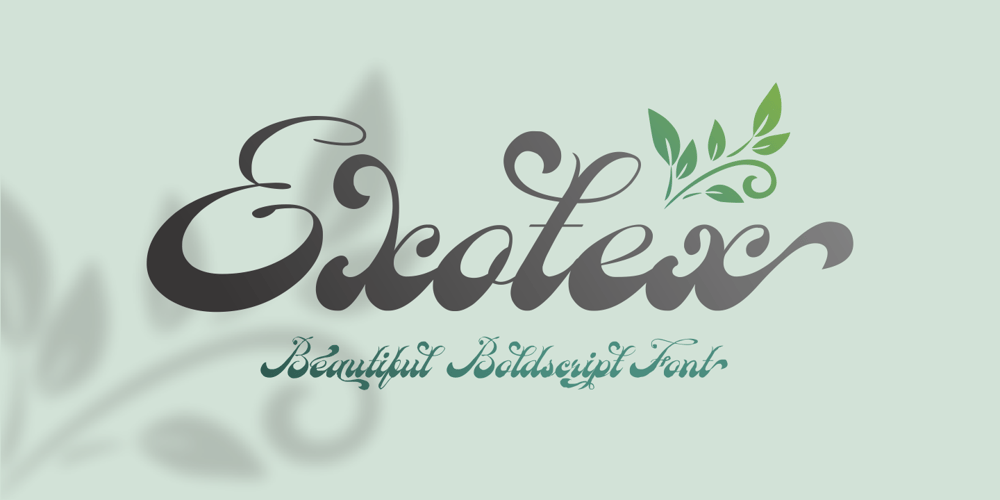
Exotex Font Family was designed by Ahmad Zulfikar Ali and published by ZetDesign. Exotex contains 1 styles and family package options. exotex is a script font created in a bold style at the bottom defined by smooth curves, clean lines, and the finest smooth strokes. Graceful and subtle in its most basic scripted form allows users to elevate their designs to higher levels of aesthetic beauty and elegance. This font is perfect for branding, writing headlines, magazines, and all kinds of your creative work.